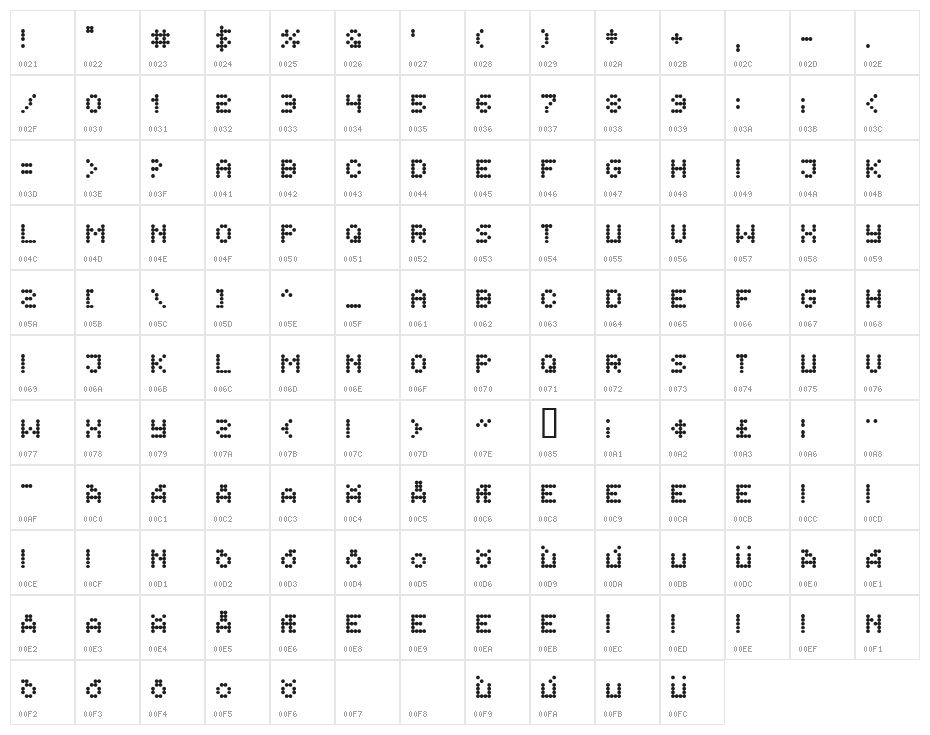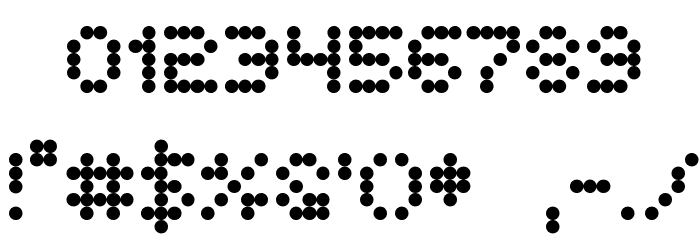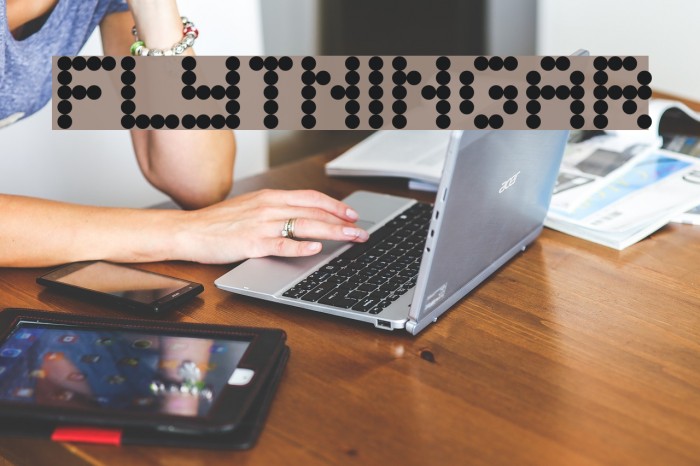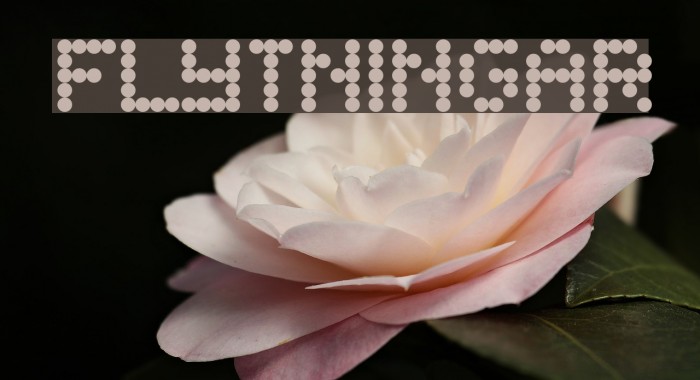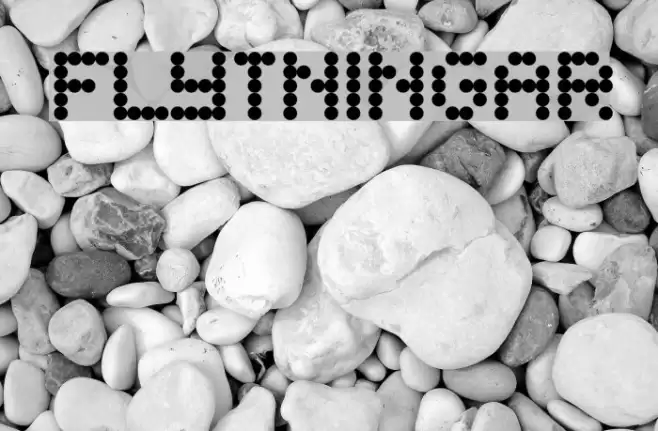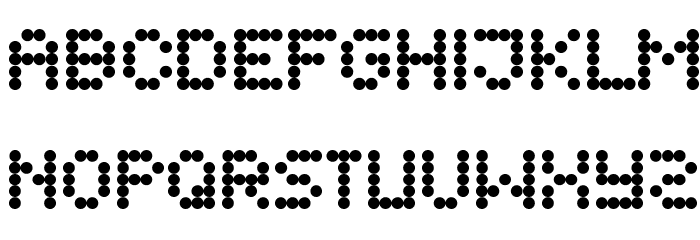
Flytningar Font
Flytningar Description
This font is composed of circular dots arranged to form each character, creating a digital and modern aesthetic reminiscent of LED displays or dot matrix printers. The uniformity of the dots gives it a structured and geometric appearance, while the spacing between the dots adds a unique texture to the overall design. The font maintains a consistent height and width across all characters, ensuring readability despite its unconventional style. It is particularly effective in conveying a sense of technology and futurism, making it suitable for projects that aim to capture a digital or tech-savvy vibe.
| Use Case | Logos, Headlines, Digital displays |
| Proposed Projects | Perfect for digital displays, tech-themed posters, futuristic branding, and innovative product packaging. |